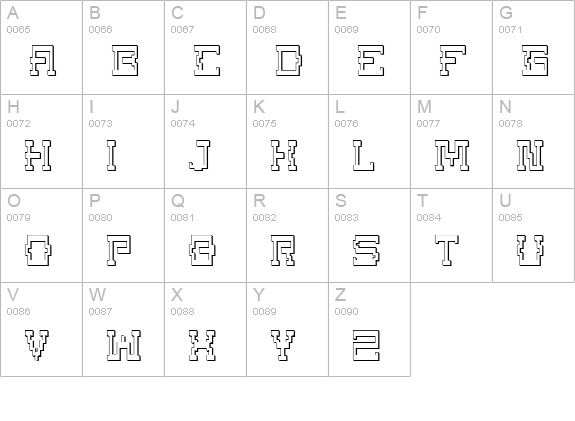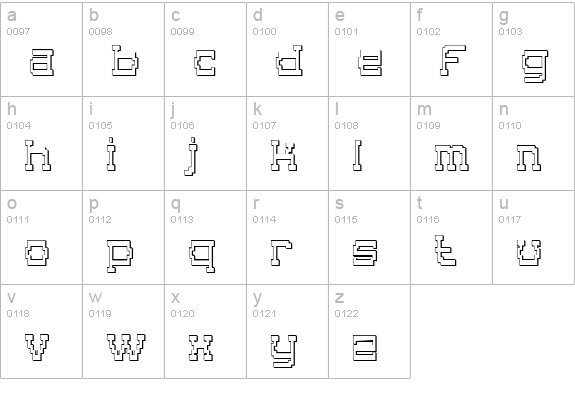
Superago 3D Font Details
Introducing the spectacular Superago 3D font - a cutting-edge typeface that brings depth and dimension to your designs like never before. This eye-catching font is perfect for creating attention-grabbing headlines, logos, posters, and more. Its bold and modern 3D effect adds a dynamic touch to any project, making it stand out from the crowd. And the best part? Superago 3D font is available for free download at FontsMarket.com. That's right, you can elevate your designs with this stunning font without breaking the bank. Don't miss out on the opportunity to add a touch of sophistication and creativity to your work with the Superago 3D font. Download it now and let your imagination soar!